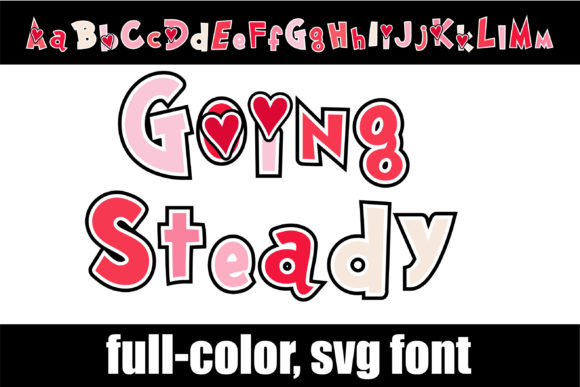
Prepare yourself to fall head over heels in love with Going Steady, a chromatic font family from the talented Illustration Ink that's bursting with creative energy and whimsical charm. This captivating collection of fonts is a symphony of colors, featuring a vibrant red and pink palette that dances across each letterform, creating a visual masterpiece that's sure to leave you breathless.
Going Steady isn't just another font; it's an artistic journey, a kaleidoscope of emotions, and a celebration of love. Its intricate and diverse lettering styles reflect the complexities of human connection, from the tender whispers of first love to the enduring passion of a lifelong commitment. Each letter is a brushstroke of creativity, a splash of color that paints a thousand stories.
More than just a font, Going Steady is an experience. It's a font that speaks to the heart, that captures the essence of love and transforms it into a tangible form. Whether you're crafting a heartfelt love letter, designing a wedding invitation, or creating a whimsical greeting card, Going Steady will elevate your words and make them dance off the page.
With Going Steady, the possibilities are limitless. Create eye-catching social media posts that pop with personality, design stunning posters that demand attention, or add a touch of playful elegance to your website. This versatile font family lends itself effortlessly to various projects, making it a must-have for any creative toolbox.
But the magic of Going Steady doesn't end there. With its PUA encoding, you'll have effortless access to a treasure trove of glyphs and swashes, giving you endless opportunities to add intricate details and flourishes to your designs. Unleash your creativity and explore the boundless potential of this remarkable font family.